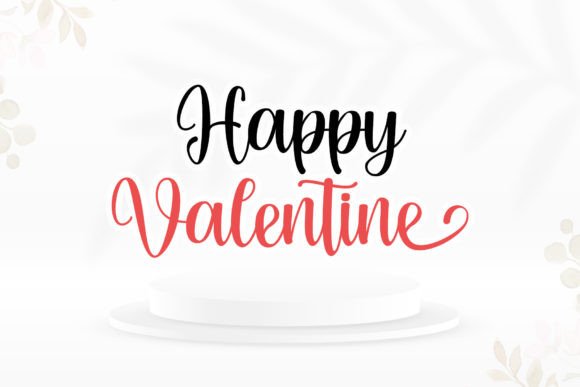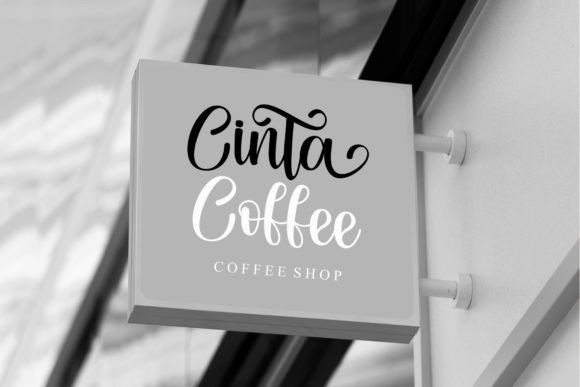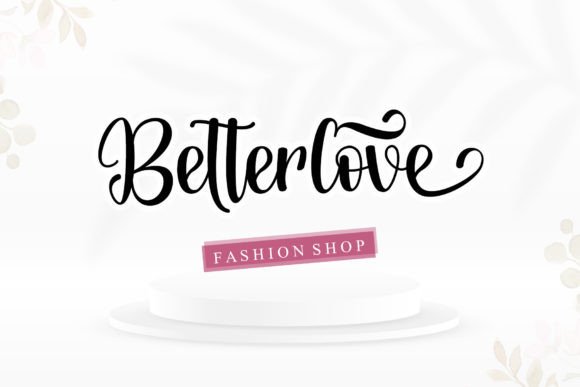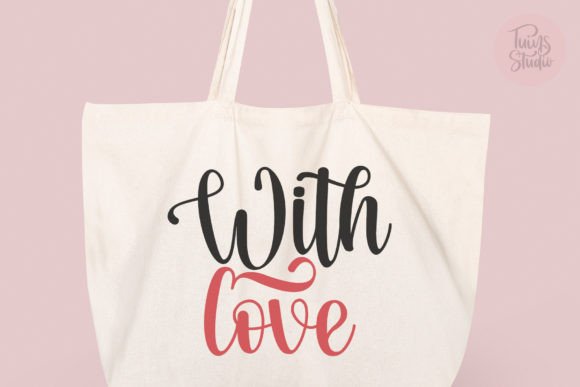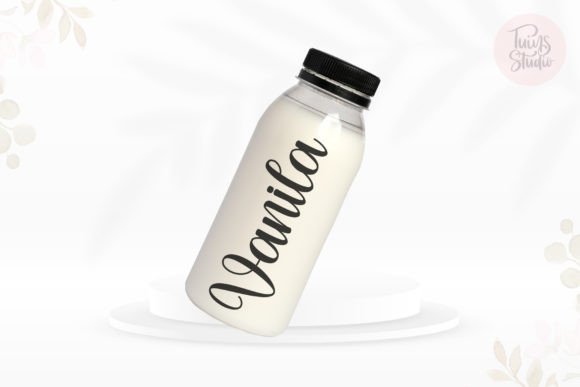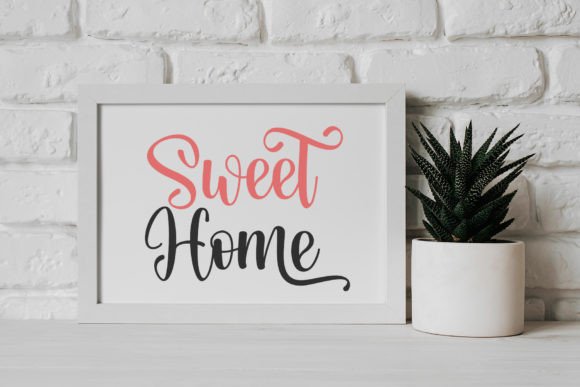
Introduction to Jihan Font
As designers, we’ve all been there – staring at a blank canvas, waiting for that perfect spark to ignite our creative project. For many of us, it’s the font that sets the tone. And when that font is the beautiful Jihan Font, the possibilities are endless. With its romantic and graceful calligraphy style, Jihan Font is a game-changer for any design project, from wedding invitations to logos, and everything in between.
What makes Jihan Font so special is its versatility and accessibility. Not only is it available for free download, but it’s also PUA encoded, making it easy to access all the glyphs and swashes you need. Plus, with a transparent background, you can easily integrate it into any design without distractions.
Whether you’re a seasoned designer or just starting out, Jihan Font is a valuable resource that’s sure to elevate your designs to the next level. With its high-quality design and endless possibilities, it’s no wonder Jihan Font has become a go-to choice for designers around the world.
Key Features of Jihan Font
- High-quality, elegant script font ideal for creative projects, such as wedding invitations, logo designs, or packaging.
- Features a transparent background, making it perfect for overlaying on images or using as a standalone design element.
- Designed with a high-resolution (300 DPI) output, ensuring crisp and clear text rendering in both print and digital applications.
- Supports a wide range of languages, making it a versatile choice for international design projects.
- Perfect for designers looking for a unique, creative font to elevate their designs and stand out from the crowd.
Honest Review: Jihan Font
I recently stumbled upon the Jihan Font while searching for a design resource to elevate my creative project. I must say, I was impressed by its clean and modern aesthetic.
- High-quality design: The Jihan Font boasts a crisp and clear typography that’s perfect for any project.
- Transparent background: The font’s transparent background allows for seamless integration with any design element.
- Limited language support: Unfortunately, the Jihan Font only supports a limited number of languages, which might be a drawback for some designers.
- No bold or italic variants: While the font is elegant in its simplicity, it would be great to have more stylistic variations available.
Overall, the Jihan Font is a great design resource for any creative project. Its high-quality design and free download make it an excellent choice, but be aware of its limitations when working with languages or stylistic variations.
Getting the Most Out of the Jihan Font
To get the most out of the Jihan Font, experiment with different font sizes, colors, and styles. Use the Jihan Font in combination with other design elements to create a unique and eye-catching design.
Common Use Cases for the Jihan Font
The Jihan Font is perfect for creative projects, such as graphic design, digital art, and typography. It’s also great for use in presentations, documents, and social media posts.